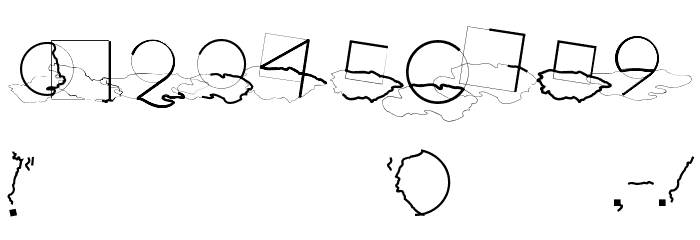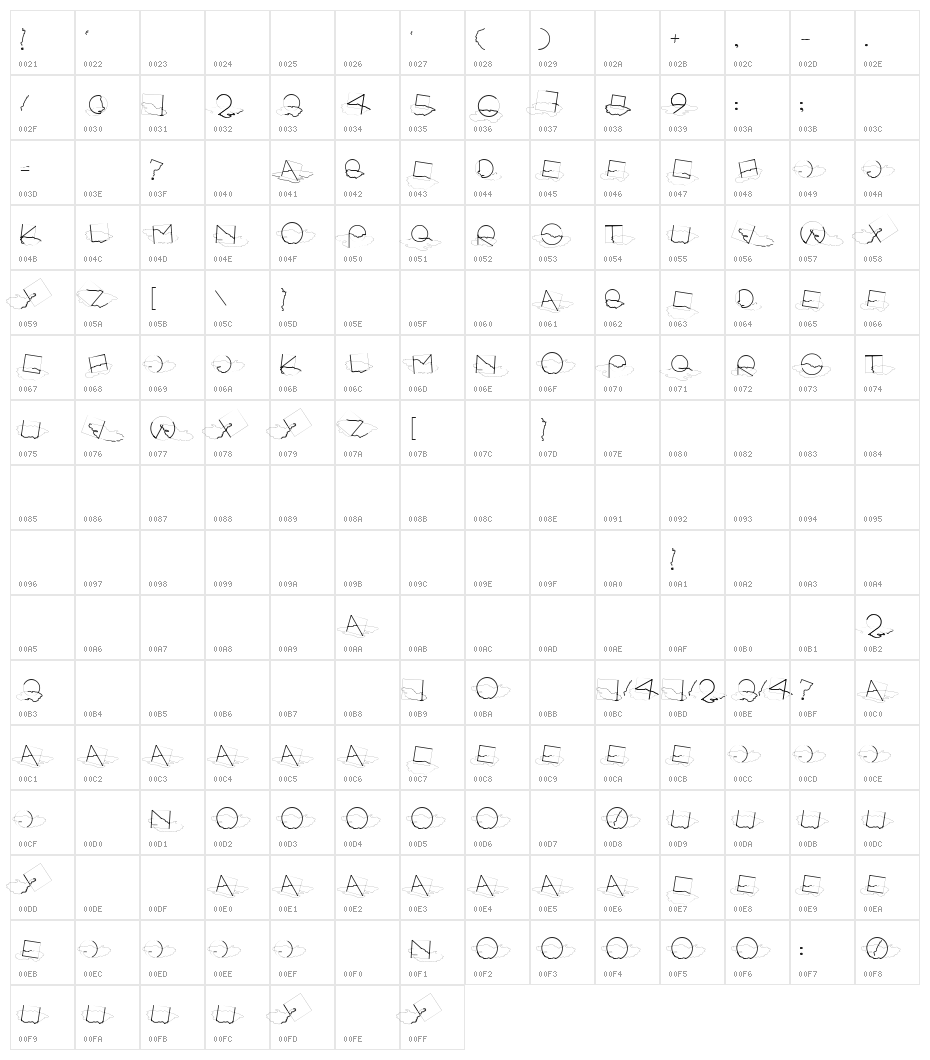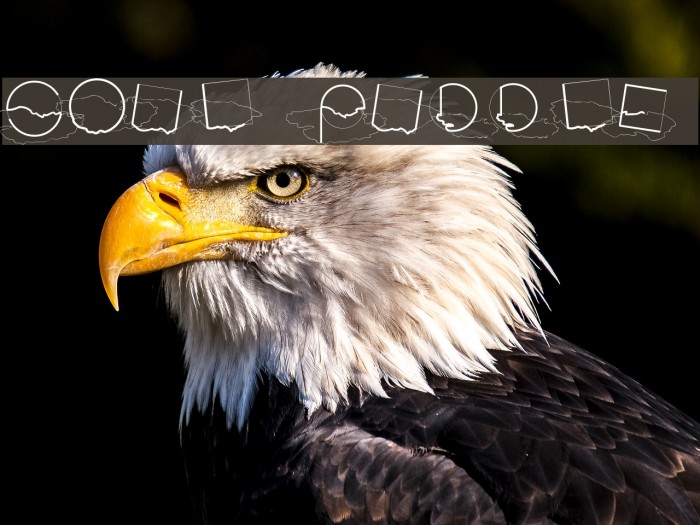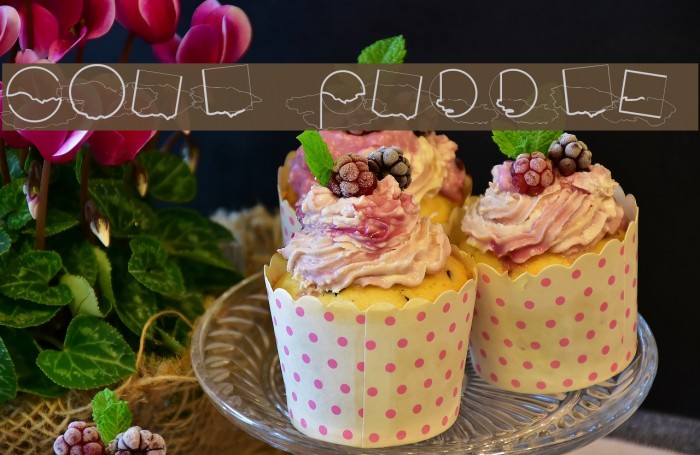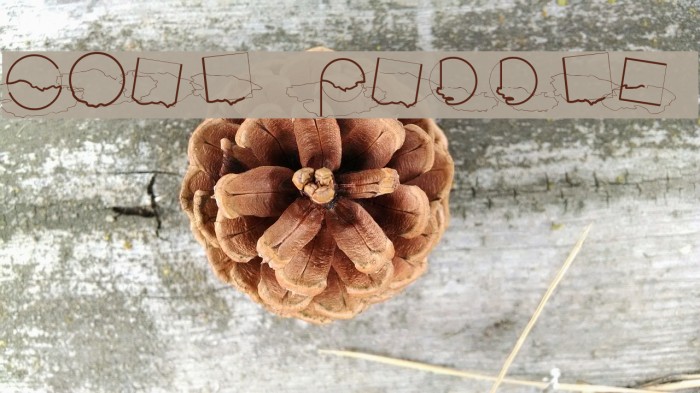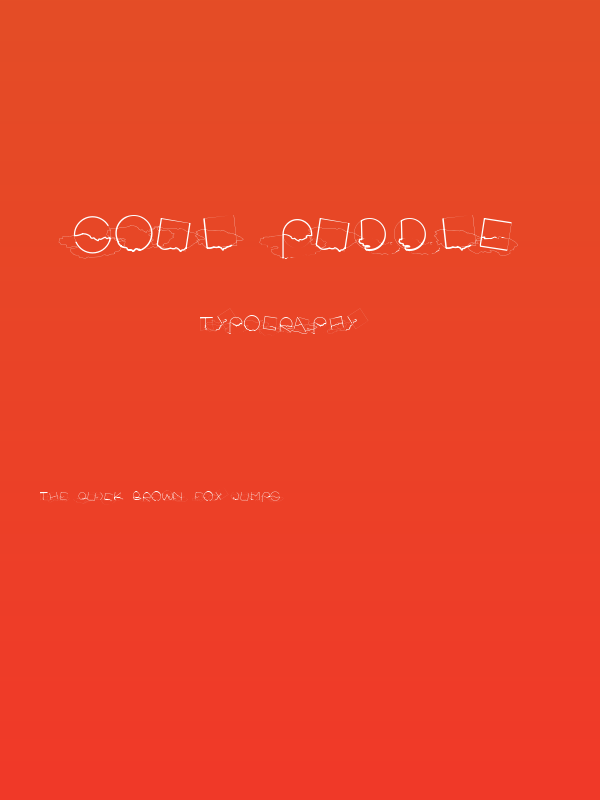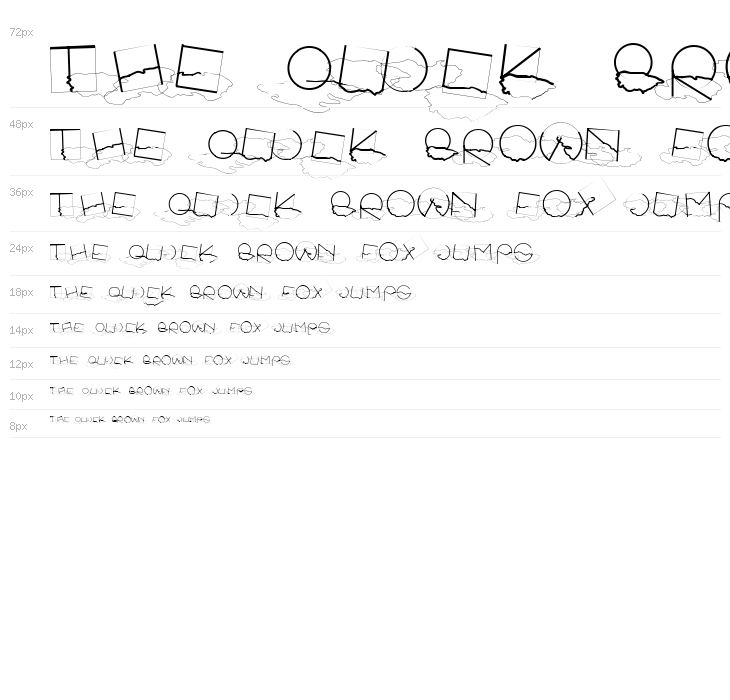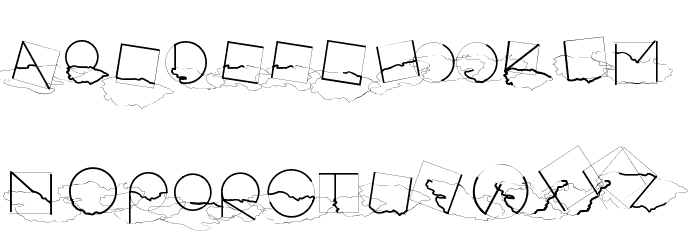
Soul Puddle Font
Soul Puddle Description
This font features a unique and abstract design, combining geometric shapes with organic, fluid elements. Each character is enclosed within a distinct shape, such as a square or circle, and is intersected by a wavy, puddle-like line that adds a dynamic and artistic flair. The overall appearance is both structured and freeform, creating a striking contrast that draws attention. The uppercase and lowercase letters maintain this theme, while the numbers and special characters follow suit, ensuring consistency throughout the typeface. This font is ideal for creative projects that require a bold and unconventional look.
| Use Case | Logos, Posters, Art Projects |
| Proposed Projects | Ideal for artistic posters, album covers, modern art installations, and creative branding. |